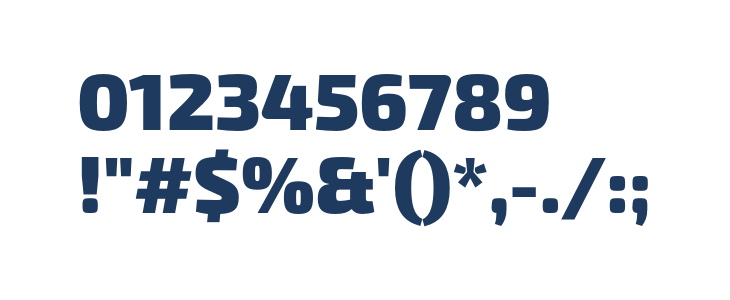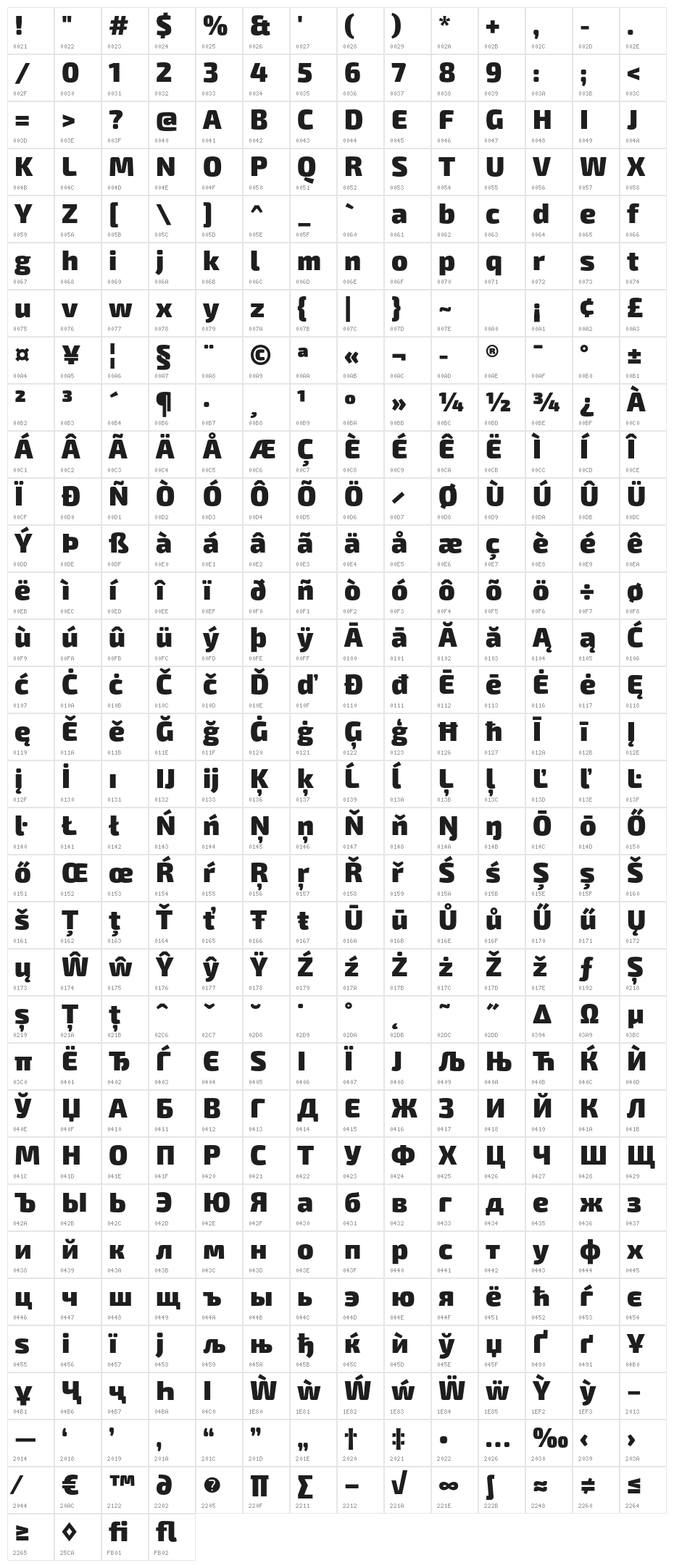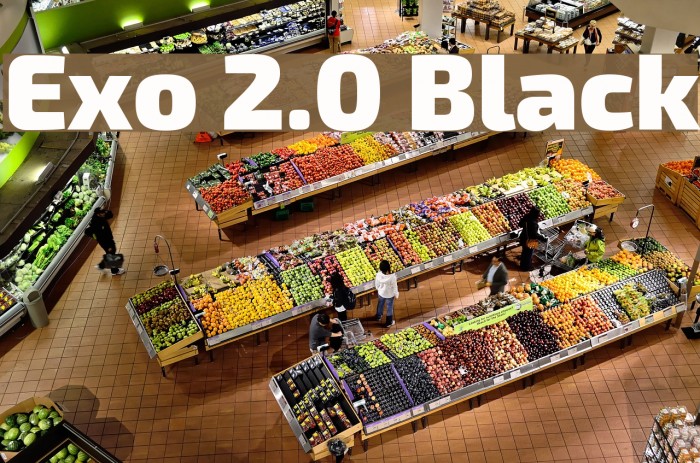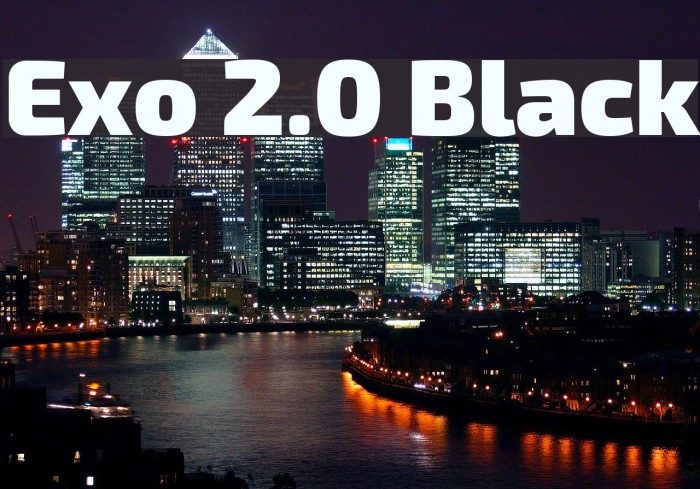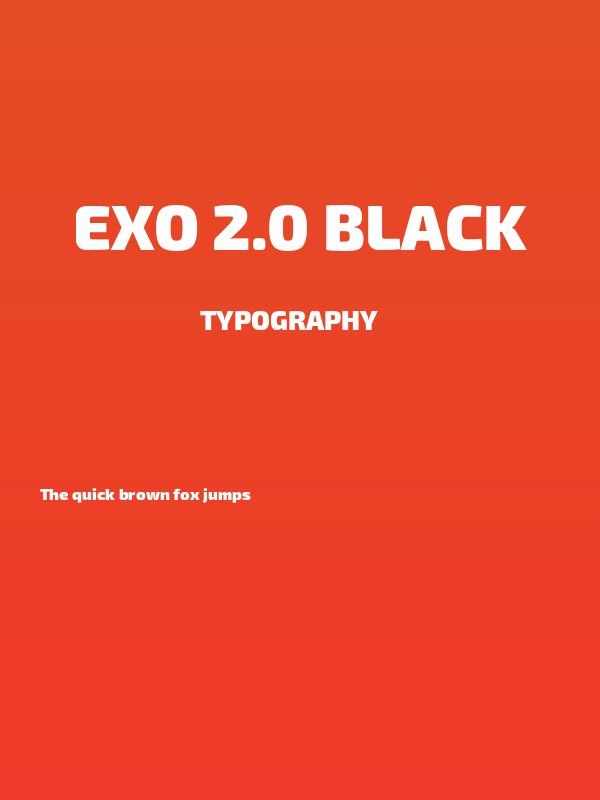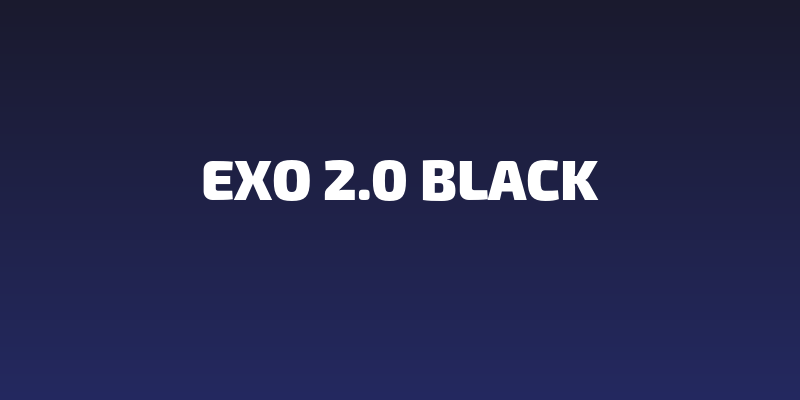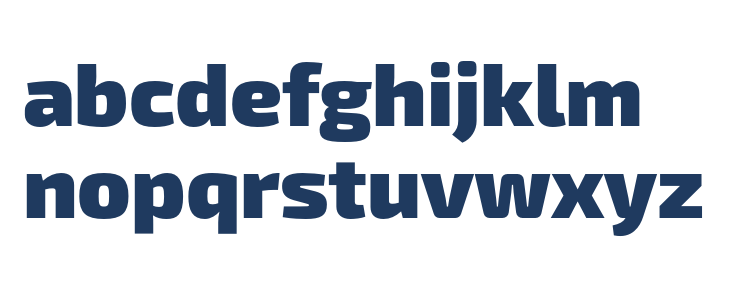
Exo 2.0 Black Font
Exo 2.0 Black Description
This font exhibits a bold and modern aesthetic with strong geometric shapes and a clean, sans-serif style. The uppercase and lowercase letters maintain a consistent weight, providing a uniform appearance across all characters. The numerals are equally bold, ensuring readability and impact. Special characters are designed with the same attention to detail, making them suitable for various applications. The overall design is sleek and contemporary, ideal for making a statement in any project.
| Proposed Projects | Ideal for branding, headlines, posters, and digital media where a strong, modern presence is desired. |